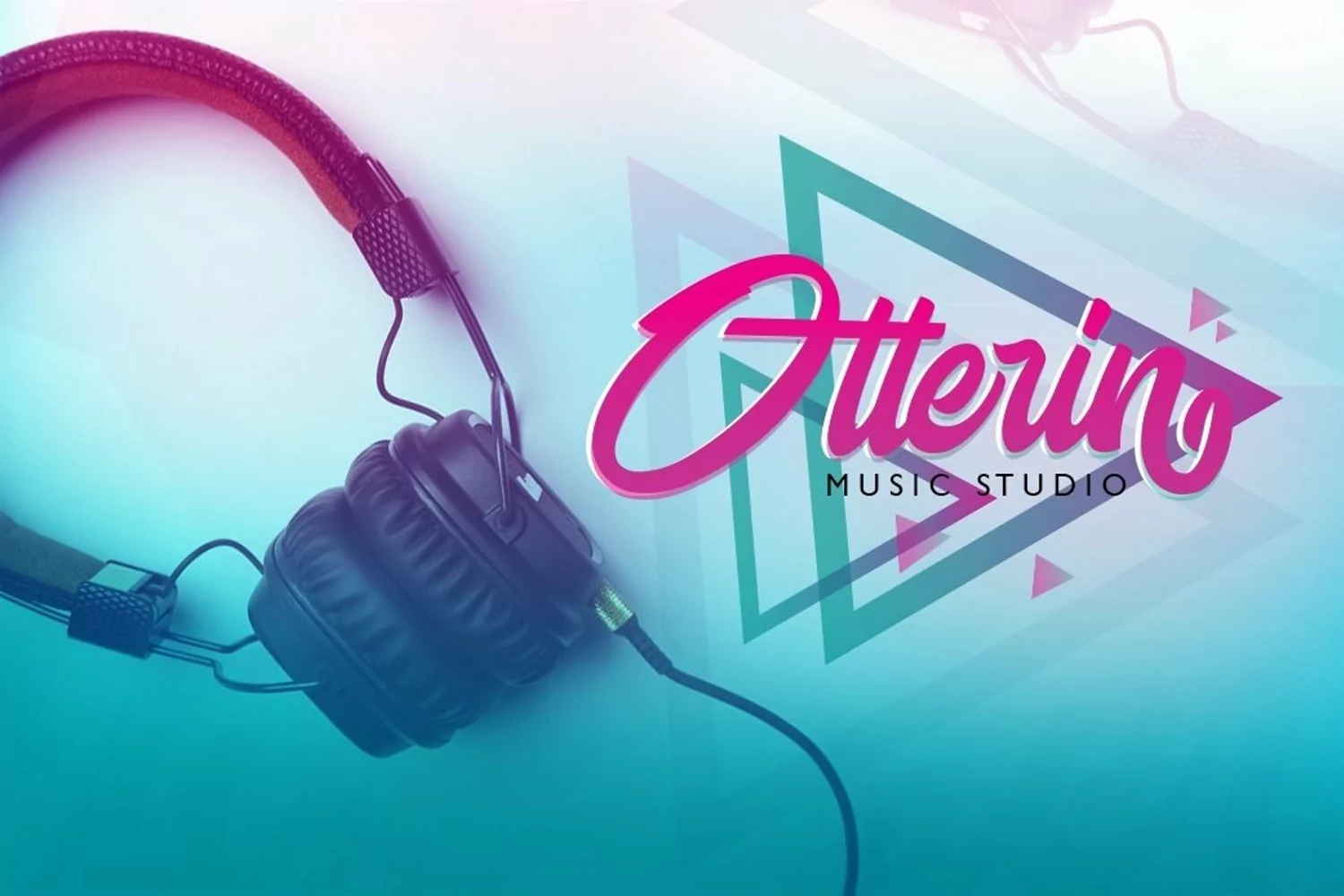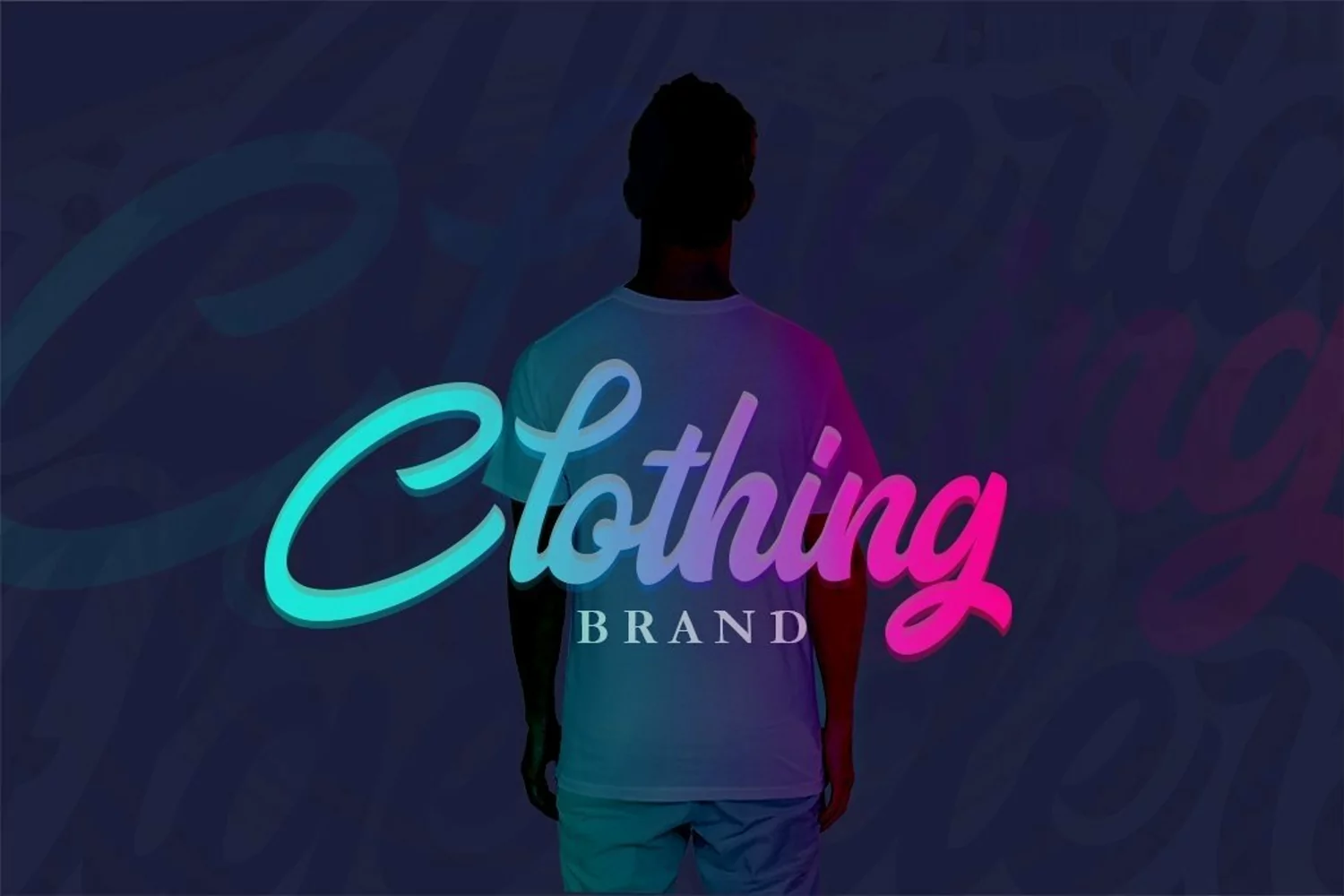
Web Font Algerider Script
a handmade font awesome, new fresh & modern script style. Can used for anything from promotional material and handwritten quotes, to product packaging, labels,logo newsletters, posters, merchandise and branding projects.
Algerider  Font Script supports :Standard Opentype and Contextual alternates